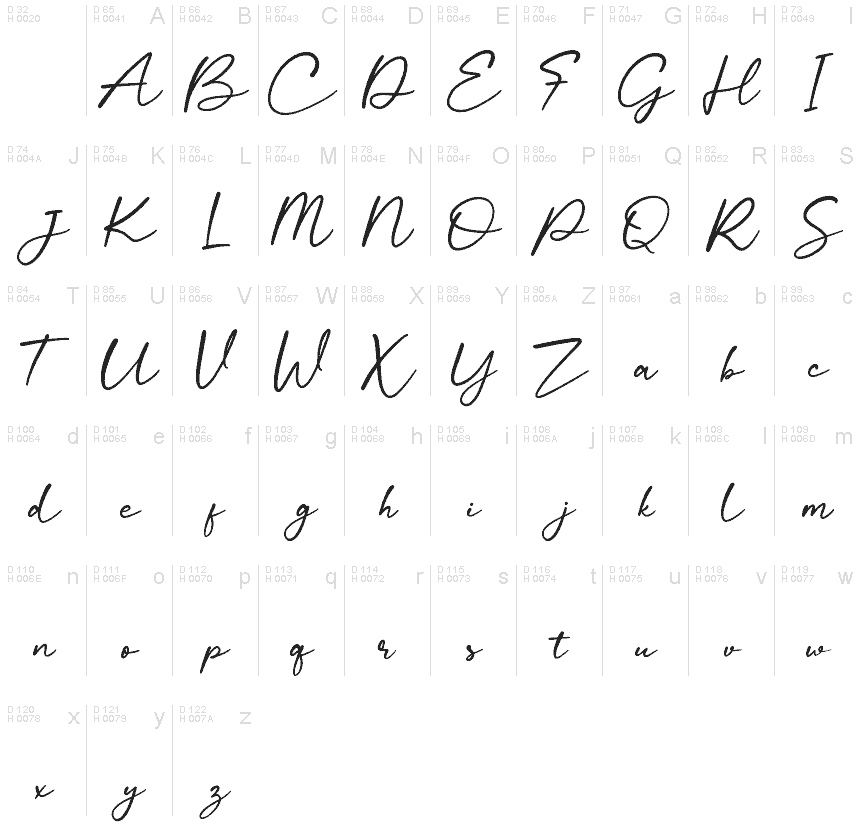
CalayaFree-Regular
Calaya font by Craft Supply Co is a light handwritten font with a contemporary aesthetic. Its elegant cursive style features graceful curves and smooth flow, allowing the contents to ooze both sophistication and simplicity. The overall look makes for neat arrangements of stylish letters while still prioritizing visibility and legibility.
Calaya Free Regular
Calaya Free